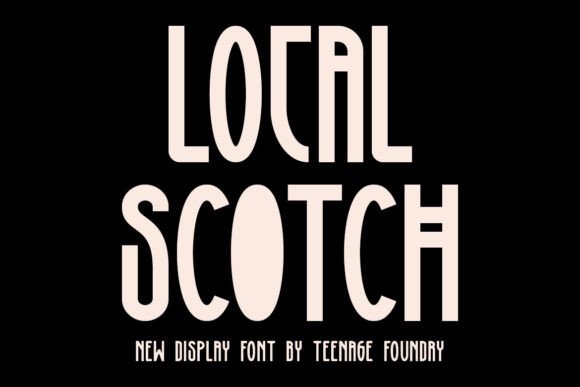
Unleash the Power of Local Scotch: A Font That Commands Attention
In a world saturated with digital noise, capturing the audience's attention has become a daunting task. Enter Local Scotch, a display font that cuts through the clutter with its bold and confident strokes. Crafted by the visionary designers at Teenagefoundry, this font is not just a collection of letters; it's a statement of individuality that elevates your digital presence to new heights.
Picture this: Your website adorned with Local Scotch's striking letterforms, each character standing tall and proud, demanding attention like a beacon in the night. Its sleek and modern design exudes a sense of luxury and sophistication, instantly grabbing the reader's eye and captivating their imagination.
With Local Scotch as your digital ambassador, you're not just communicating information; you're creating an experience that resonates with your audience. Its tall letterforms convey a sense of authority and reliability, inspiring trust and confidence in your brand. Its clean lines and sharp edges evoke a feeling of precision and attention to detail, leaving a lasting impression of professionalism and competence.
But Local Scotch isn't just a pretty face; it's a workhorse that delivers exceptional functionality. Its single-line design makes it incredibly versatile, seamlessly adapting to a wide range of applications, from website headers and logos to social media graphics and product packaging. Its tall letterforms ensure maximum visibility, even in smaller sizes, making it the perfect choice for designs that demand impact.
The Best Font for Website Text: Clarity Meets Impact
In the realm of website design, clarity is paramount. Local Scotch understands this need and delivers crisp, legible text that ensures your message is conveyed with crystal clarity. Its tall letterforms provide ample space between lines, enhancing readability and reducing eye strain, making it an ideal choice for long-form content and intricate designs.
But clarity alone is not enough; a website font must also captivate and engage. Local Scotch strikes the perfect balance between readability and visual appeal. Its bold strokes and confident stance create a sense of dynamism and energy, drawing the reader's eye and guiding it through your content. Whether it's a captivating call-to-action or an important announcement, Local Scotch ensures your message is seen, heard, and remembered.